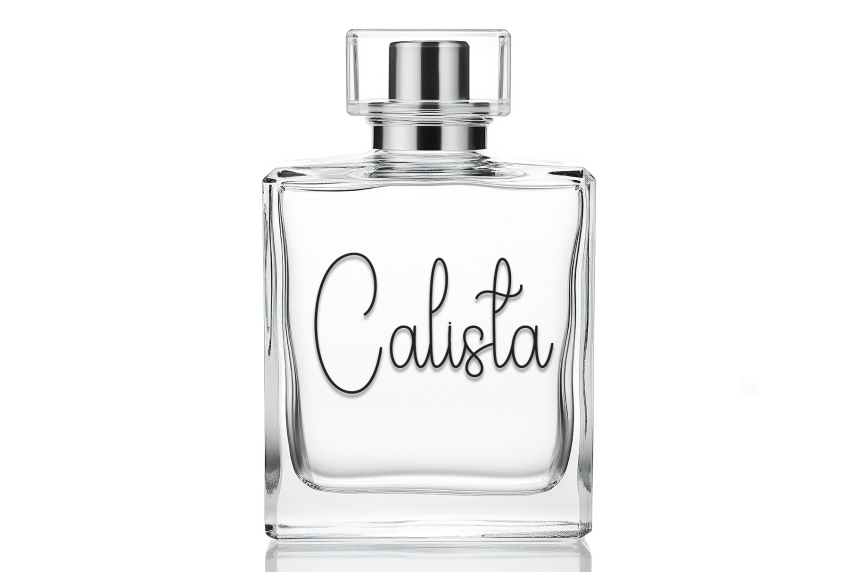
Birthday Script Stylish Handwritten Font
Birthday Simple Stylish Handwritten Font is a sweet and friendly handwritten display font. Cute and fun, this font is ideal for writing wedding invitations, cards, or any other design that might need a playful touch!